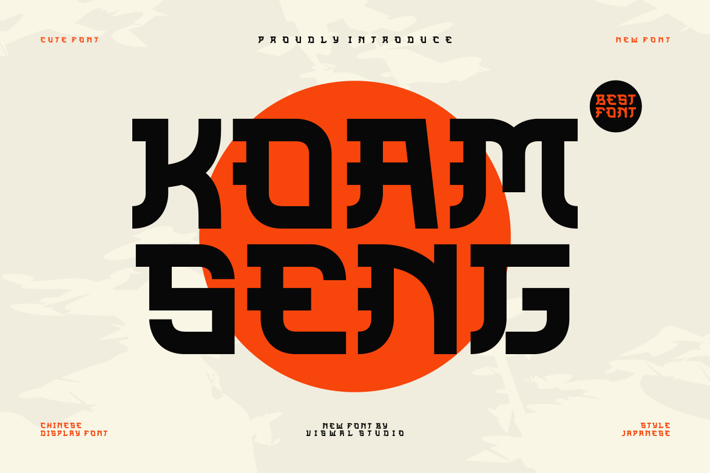
Koam Seng - Modern Chinese Font
Presenting Koam Seng - Font is suitable for badge, labels, logo, branding, magazine, poster and etc. Our fonts have Uppercase & Lowercase, Numeral & Punctuation, Multilingual support and Opentype Features. For Amazing designs you can mix with other fonts as a complement.